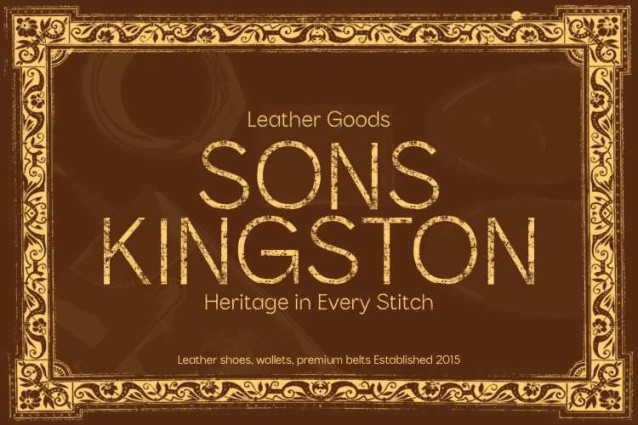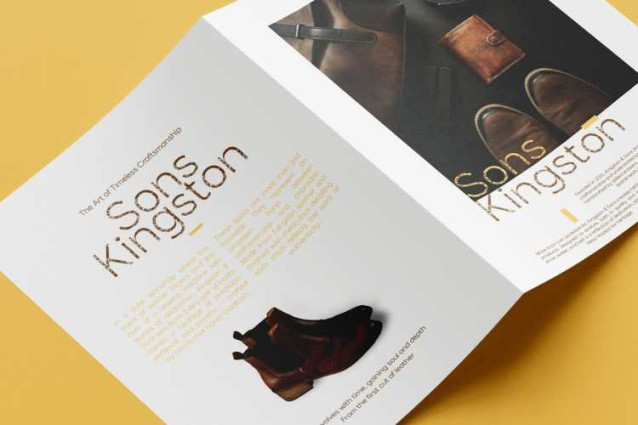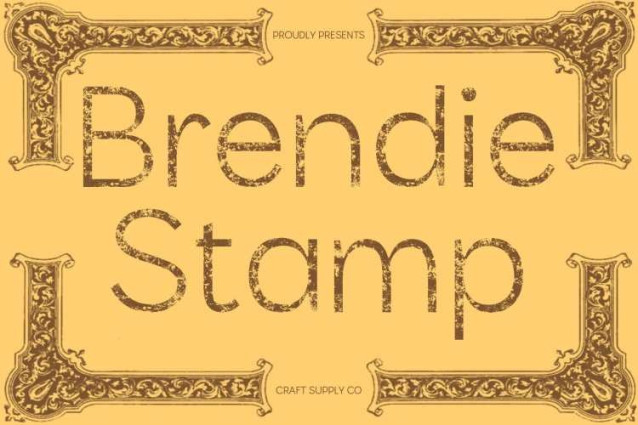
Brendie Stamp Font
Brendie Stamp Font is a modern grotesk sans serif font that blends minimal structure with handcrafted charm. Its clean geometry and balanced proportions create a professional, versatile look, while the subtle stamp texture introduces warmth and depth. This combination bridges modern clarity and vintage imperfection, giving your typography a distinct human touch.
Functional Design Meets Artistic Edge
Built for readability and visual impact, this font’s letterforms retain the efficiency of a contemporary sans serif while embracing a more tactile aesthetic. The textured edges simulate traditional ink printing, adding movement and authenticity to the design. It’s a perfect harmony of structure and emotion precise enough for digital layouts yet expressive enough for print and branding.
Perfect for Editorials, Branding, and Vintage Design
From editorial headlines to modern logo design, this font adapts effortlessly across styles and formats. Its versatile nature allows it to shine in digital environments as well as vintage-inspired projects, offering a timeless tone that’s both clean and characterful.
A Modern Classic with Handcrafted Soul
This font embodies the balance between functionality and artistry. The refined grotesk framework paired with the organic stamp texture gives this typeface a distinctive presence ideal for designers seeking a font that feels modern, authentic, and beautifully imperfect.